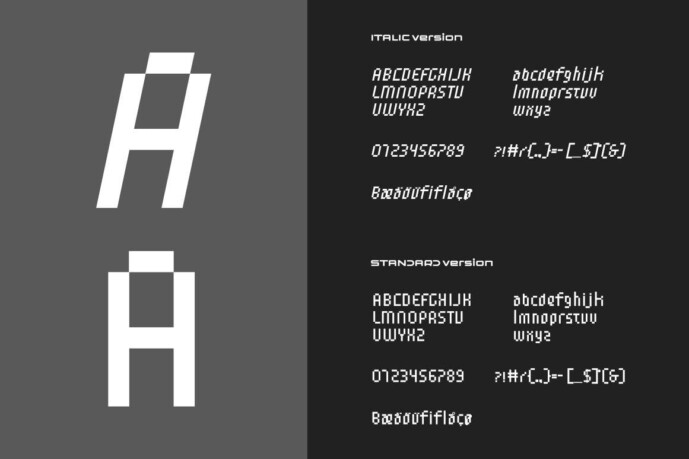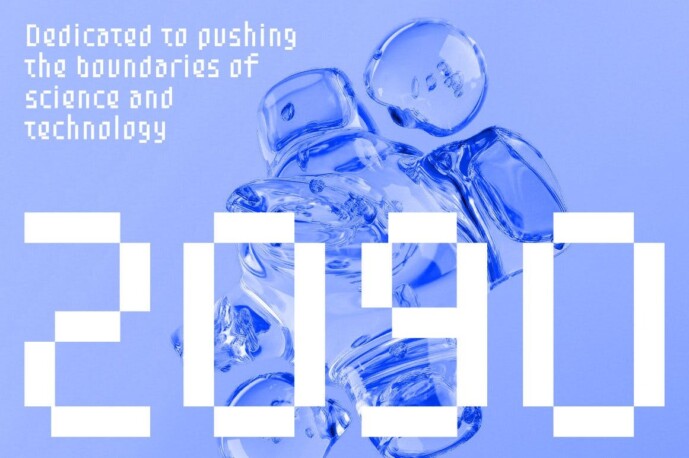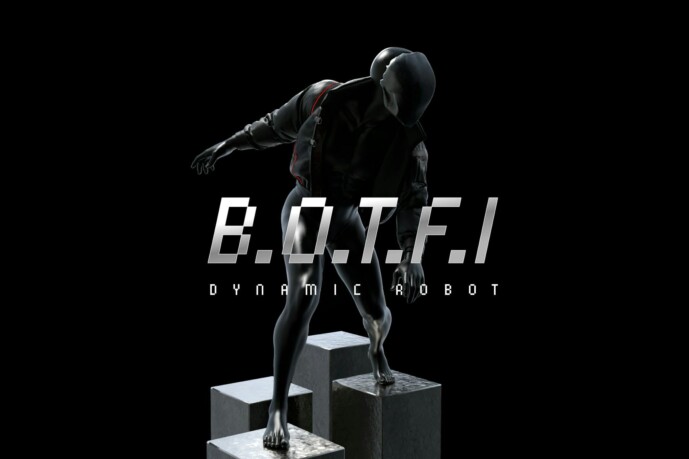
Speed Pixel Font
Speed Pixel Font, our pixel font reignites that nostalgic spark with stunning precision. Forget blurry recreations: this is modern pixel art, meticulously crafted to create sharp, eye-catching designs